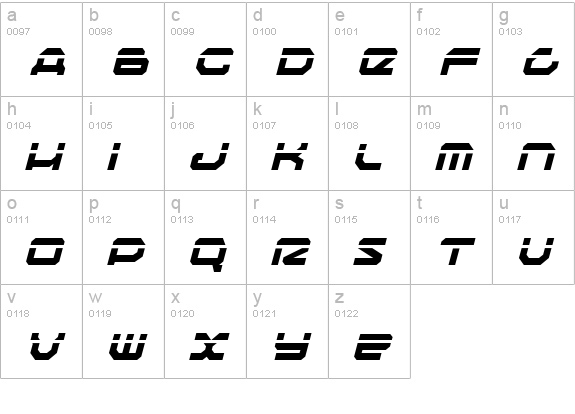
Traveler Laser Italic is a distinctive, italic variant in the Traveler typeface family \xE2\x80\x94 well suited to design and typography projects.
The Traveler Laser Italic font is a sleek and modern typeface perfect for adding a touch of sophistication to your design projects. Its elegant, slanted style exudes a sense of adventure and wanderlust, making it ideal for travel-related content or any creative endeavor that calls for a dash of excitement. With its clean lines and contemporary appeal, Traveler Laser Italic is sure to make a bold statement while maintaining a sense of professionalism. Whether you're designing a travel brochure, a poster for an exotic destination, or crafting a stylish logo for a travel agency, this font will elevate your work to new heights. Best of all, Traveler Laser Italic is available for free download at FontsMarket.com, so you can start using this stunning typeface in your projects right away. Don't miss out on the opportunity to add this versatile and eye-catching font to your design toolkit today!